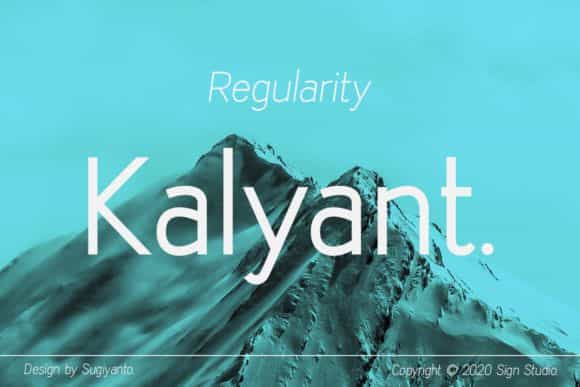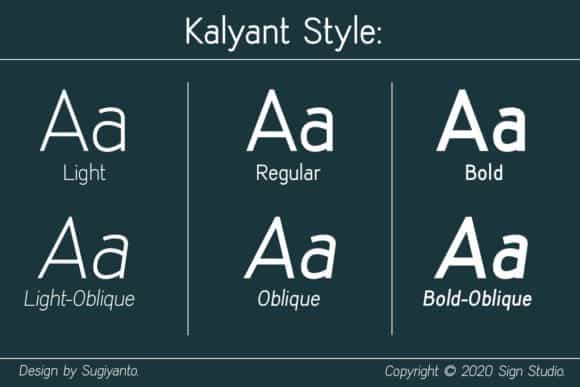
Kalyant is a basic and informal sans serif font which is truly clean. Its orderly and lovely way of letters is what makes this typeface great for both formal and non-formal designs. Kalyant’s design is grounded on the concept of perfect geometric shapes and turning them into funky! By making slight alterations here and there, the glyphs are explicitly made to be more human and entertaining.